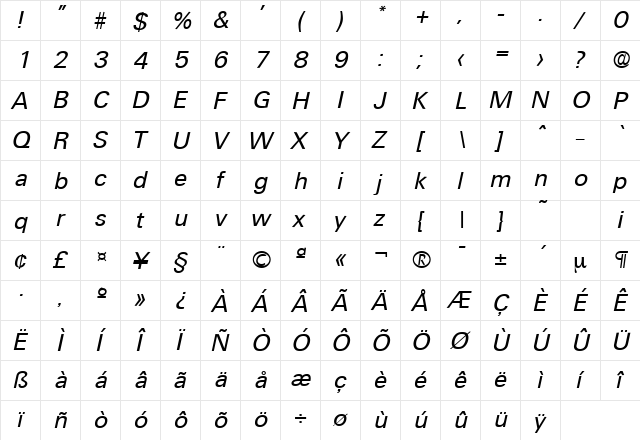
Ultimate-Serial DB RegularItalic
Design Context for Ultimate-Serial DB Typeface
Ultimate-Serial DB is a composed and adaptable typeface that performs quietly and consistently across a wide range of design contexts. Its italic angle brings a sense of urgency and motion to the letterforms.